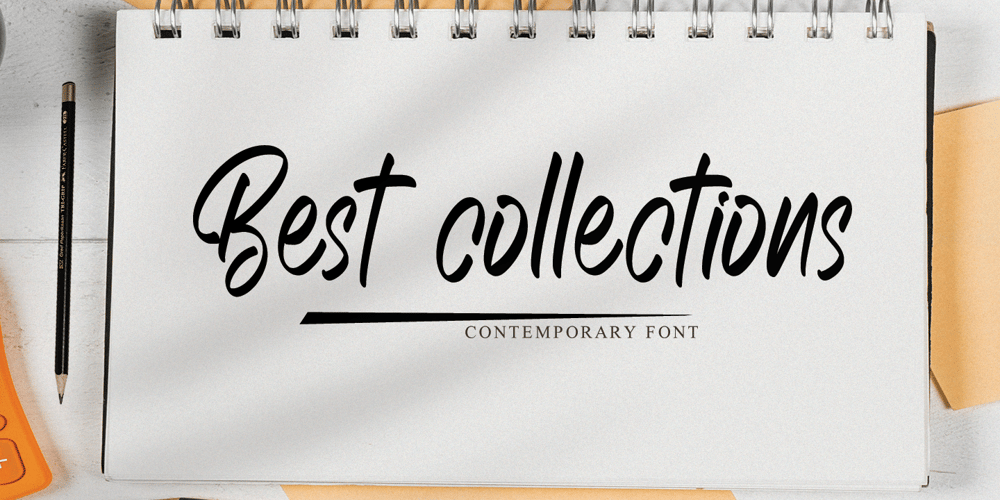
Best collections
Best collections font
Best collections Font Family was designed by Gie Studio and published by Gie Studio. Best collections contains 1 styles and family package options. Hi Everyone’s,… Design and introduce your business products with modern typography and full of natural impression. Best collection fonts will give all these impressions to help your product look more memorable in everyone’s hearts. Best Collections fonts will be a wonderful asset to your font library and perfect for many projects such as logos & branding, stationery, logo designs, social media posts, advertisements, product packaging, product designs, label, watermark, product branding and others.Features: Multilingual Support for 83 Country Special Underline Collection PUA Encoded Numeral and Punctuation Language Support :Afrikaans, Albanian, Asu, Basque, Bemba, Bena, Breton, Catalan, Chiga, Colognian, Cornish, Croatian, Czech, Danish, Dutch, Embu, English, Esperanto, Estonian, Faroese, Filipino, Finnish, French, Friulian, Galician, Ganda, German, Gusii, Hungarian, Inari Sami, Indonesian, Irish, Italian, Jola-Fonyi, Kabuverdianu, Kalaallisut, Kalenjin, Kamba, Kikuyu, Kinyarwanda, Latvian, Lithuanian, Lower Sorbian, Luo, Luxembourgish, Luyia, Machame, Makhuwa-Meetto, Makonde, Malagasy, Maltese, Manx, Meru, Morisyen, Northern Sami, North Ndebele, Norwegian Bokmål, Norwegian Nynorsk, Nyankole, Oromo, Polish, Portuguese, Quechua, Romansh, Rombo, Rundi, Rwa, Samburu, Sango, Sangu, Scottish Gaelic, Sena, Serbian, Shambala, Shona, Slovak, Soga, Somali, Spanish, Swahili, Swedish, Swiss German, Tait, Teso, Turkish, Upper Sorbian, Uzbek (Latin), Volapük, Vunjo, Walser, Zulu.Thank you for everything and happy design .